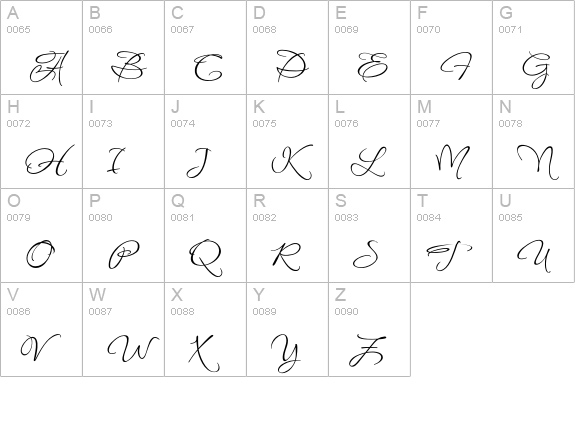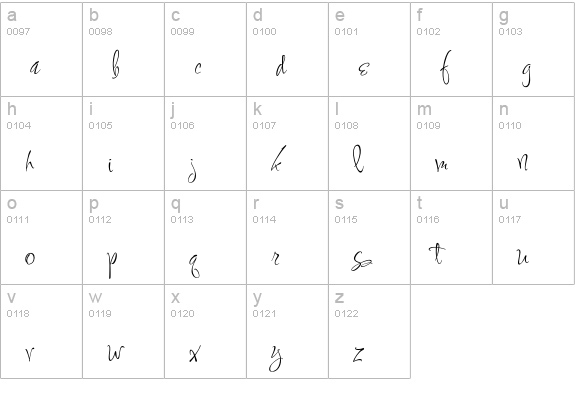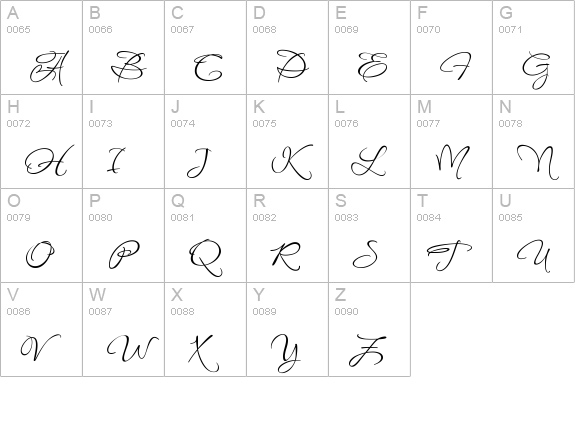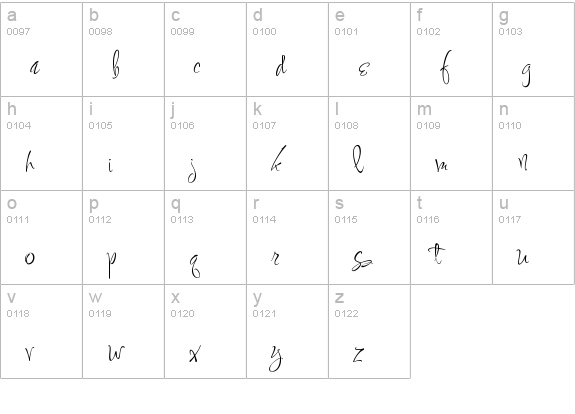
FugglesFour Font Details
FugglesFour font is a stylish and versatile typeface that is perfect for adding a touch of elegance to your designs. With its unique and eye-catching characters, this font is sure to make a statement wherever it is used. Whether you're designing a logo, creating a flyer, or working on a branding project, FugglesFour font has got you covered. What's even better is that FugglesFour font is available for free download at FontsMarket.com. Yes, you read that right - this amazing font is freely available for you to use in your personal and commercial projects. So why wait? Download FugglesFour font today and take your designs to the next level!